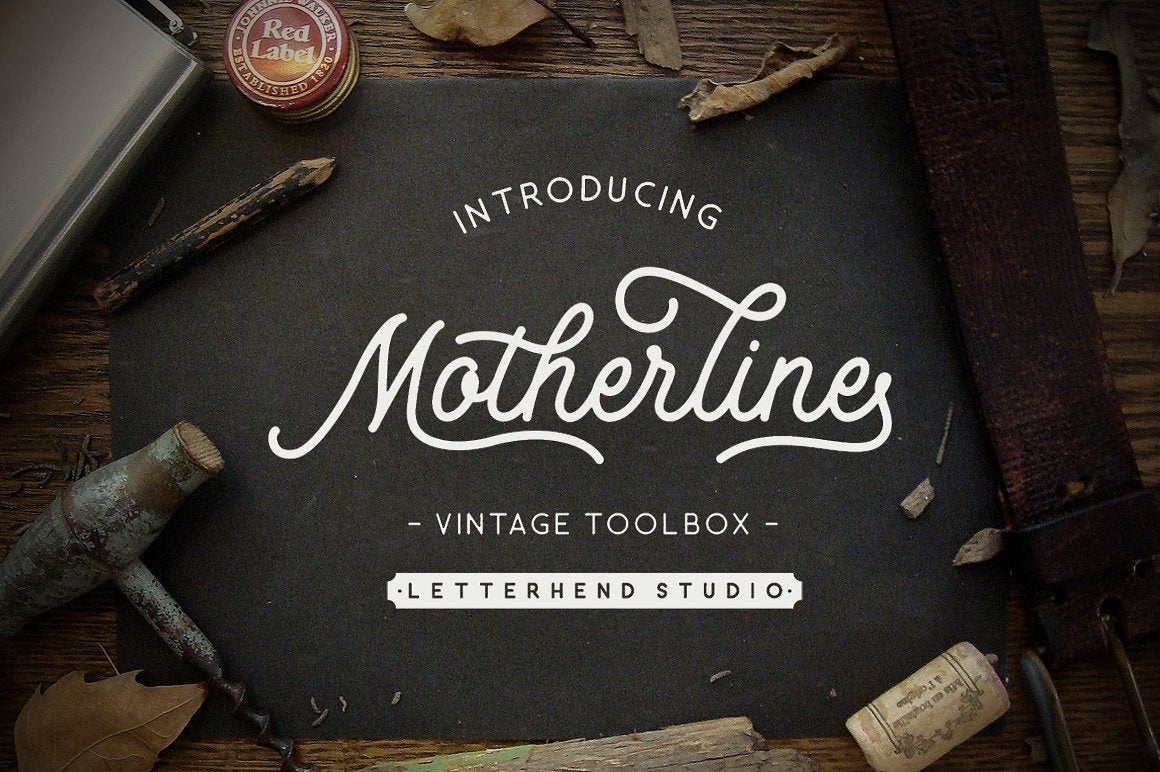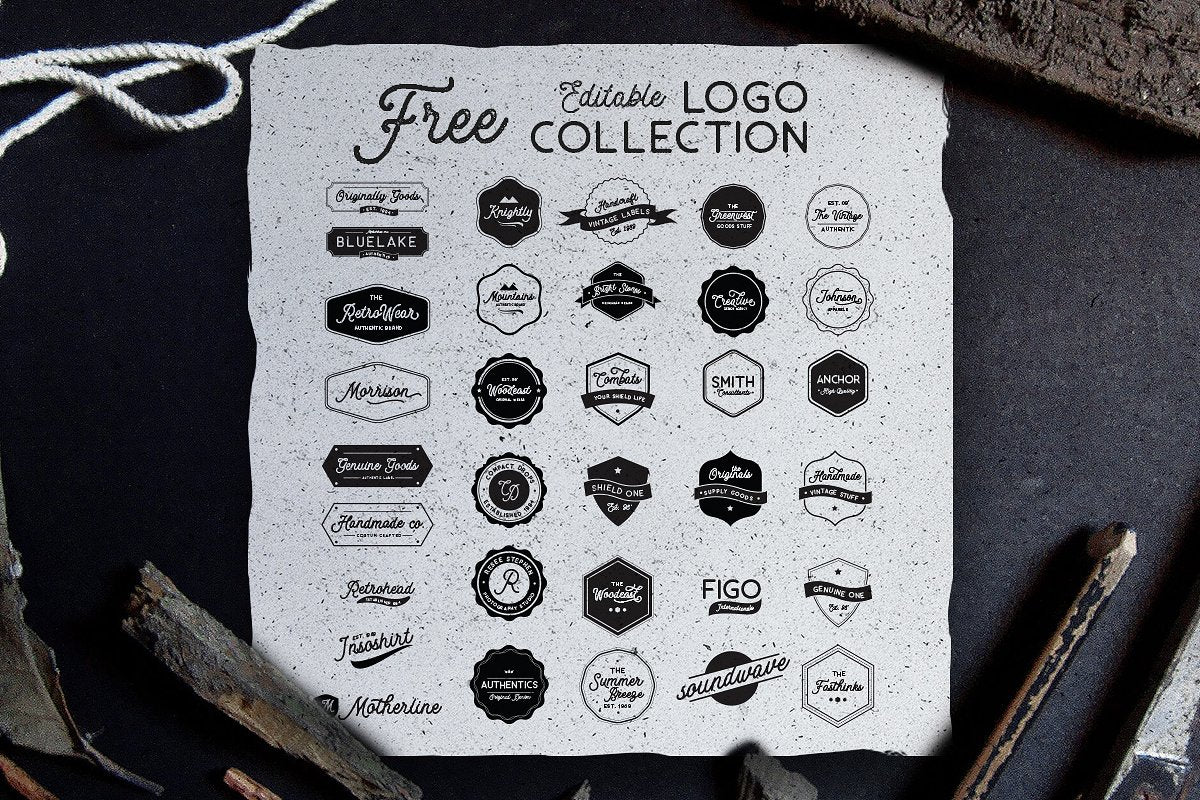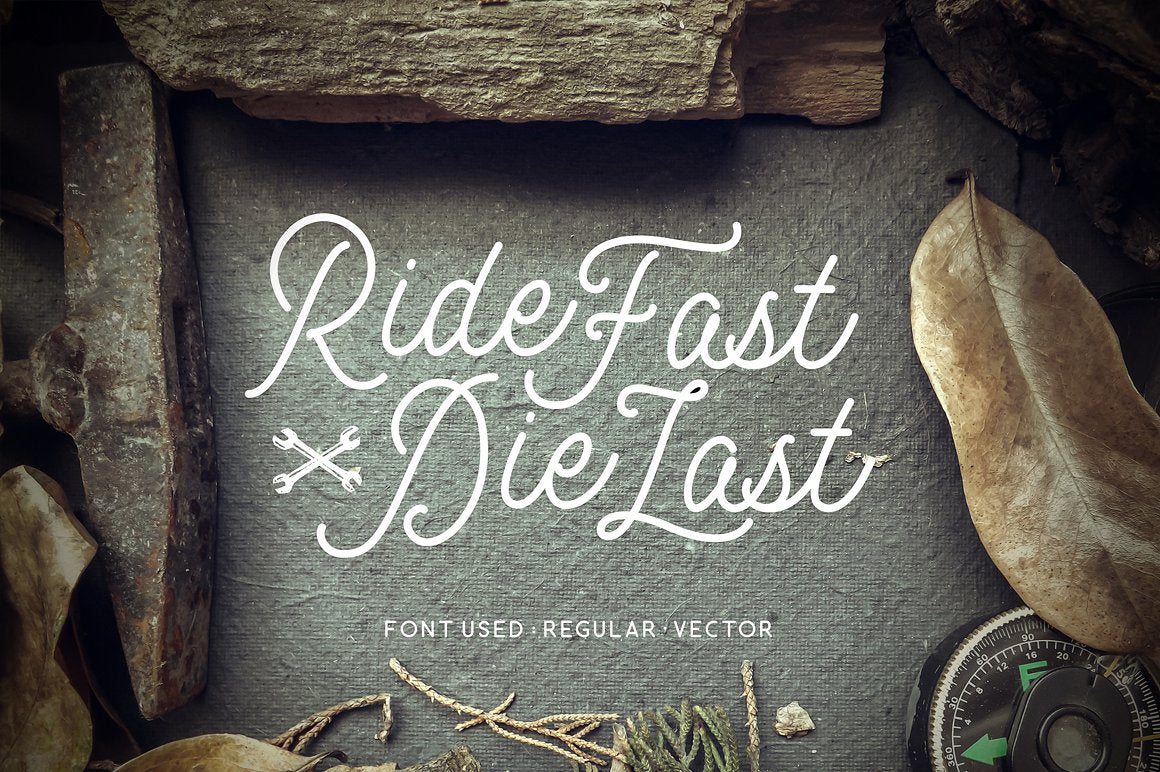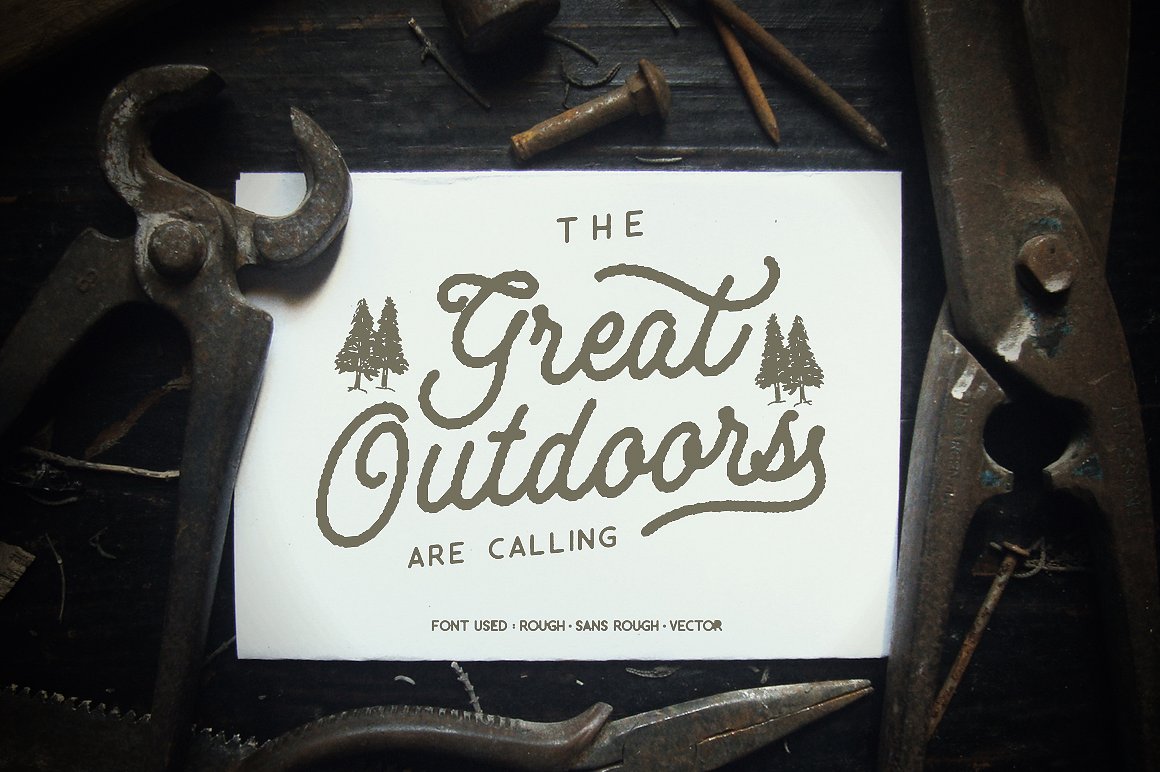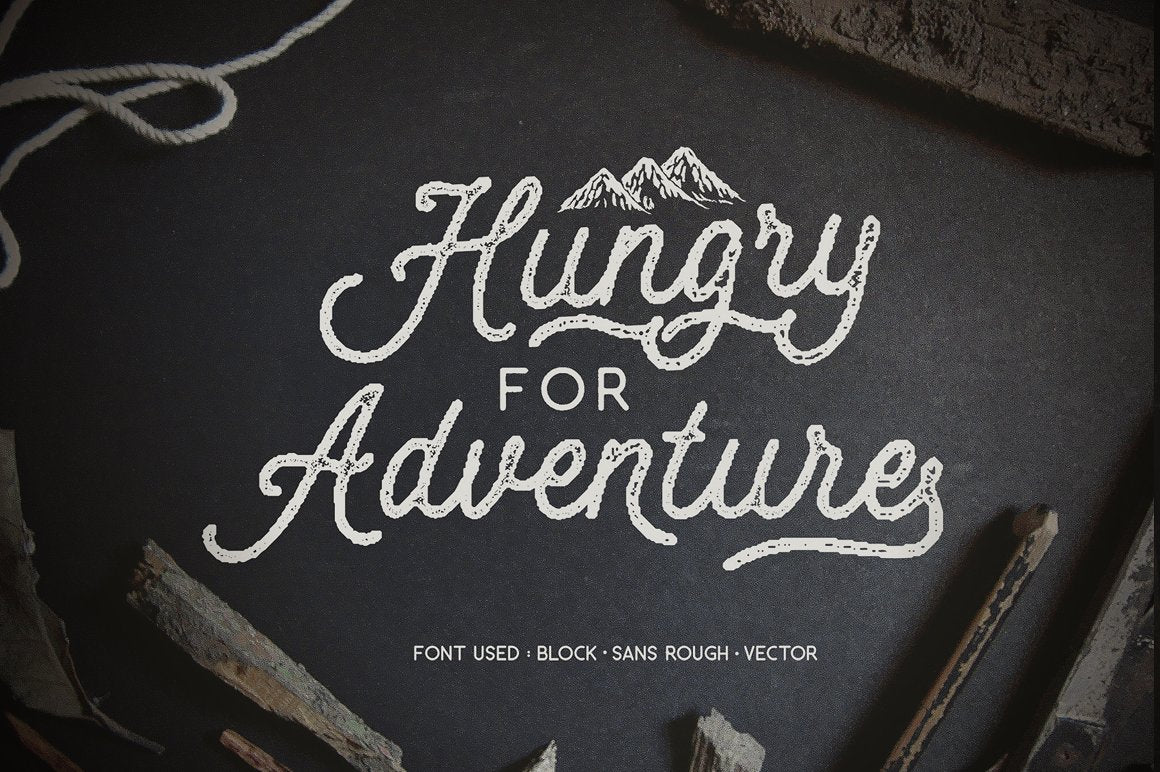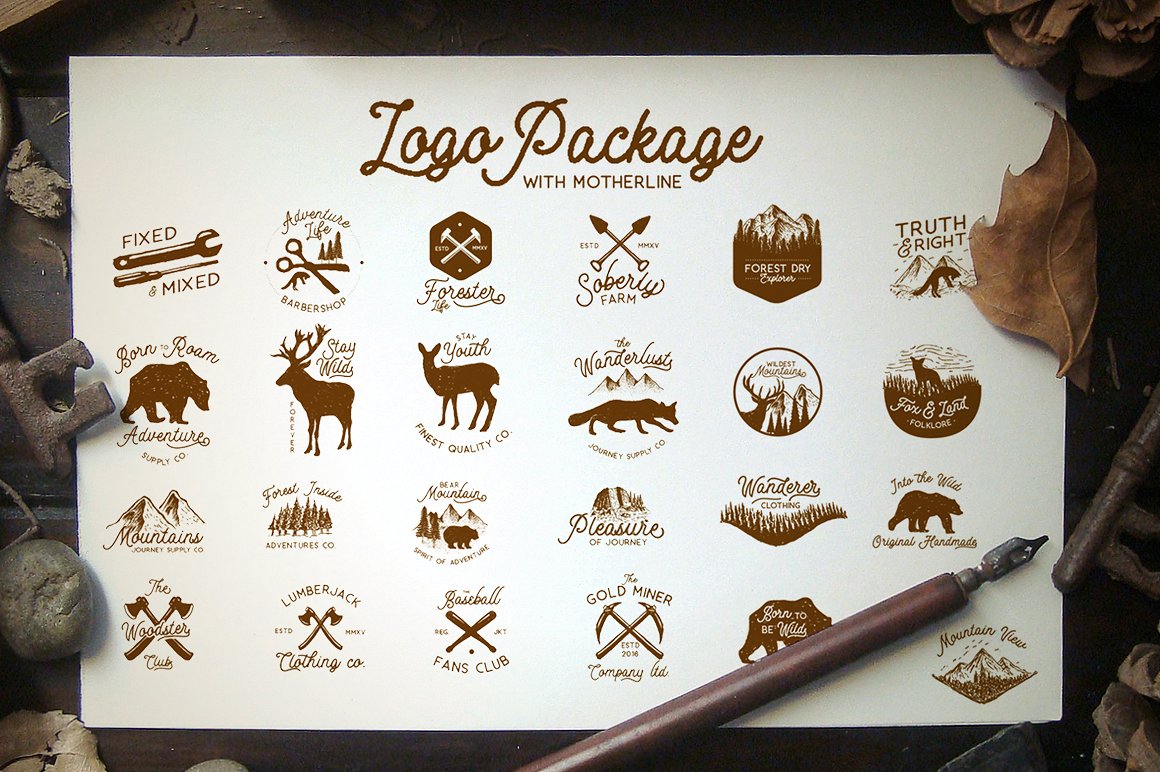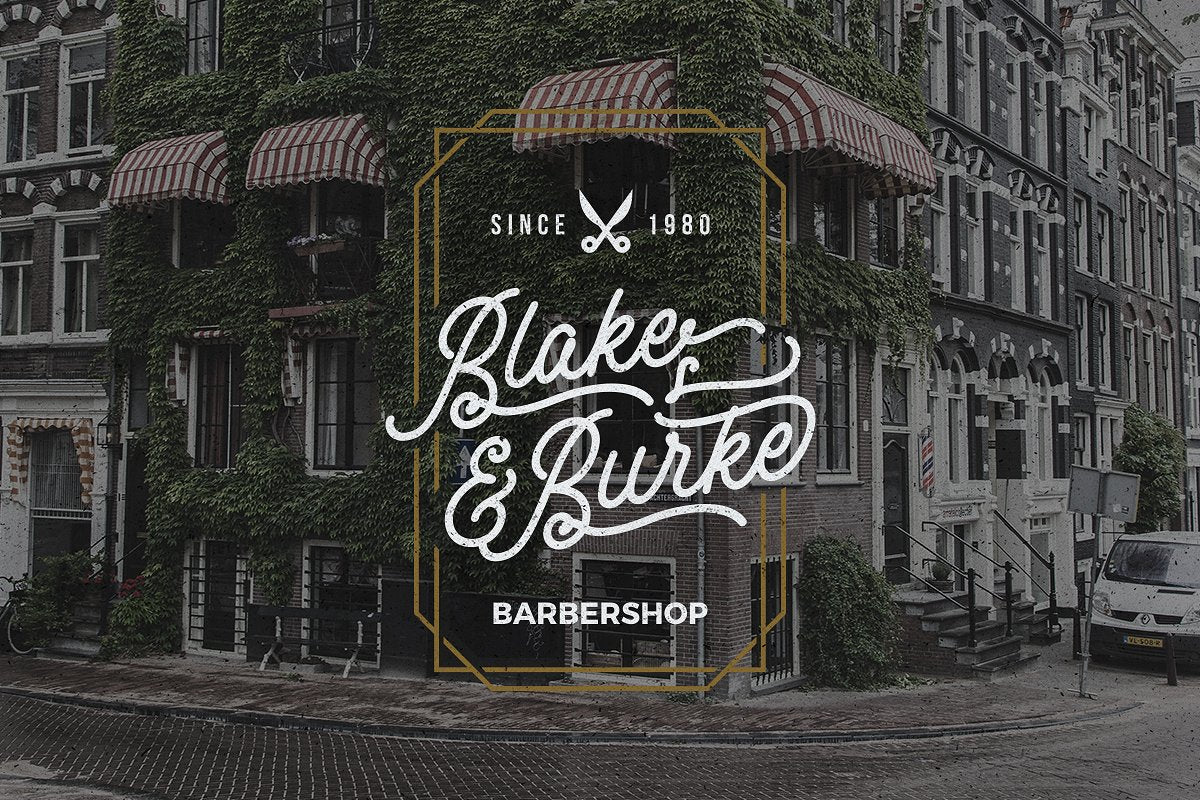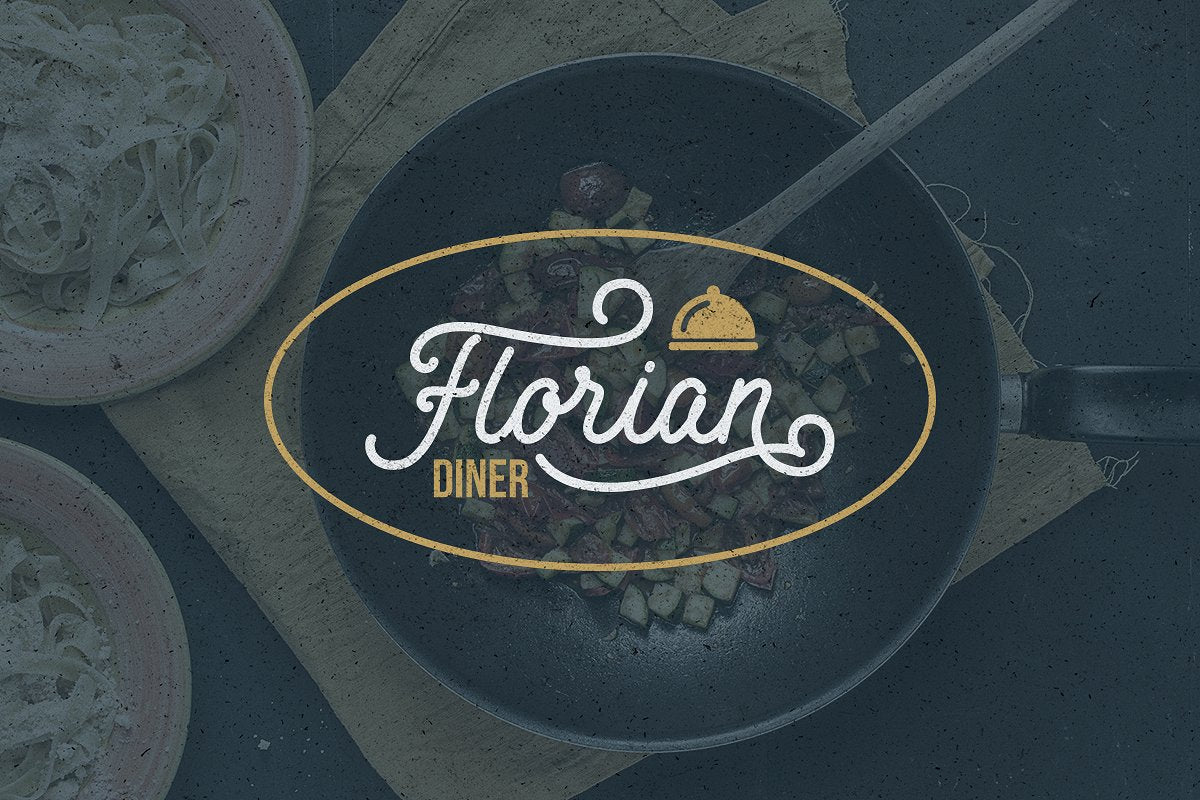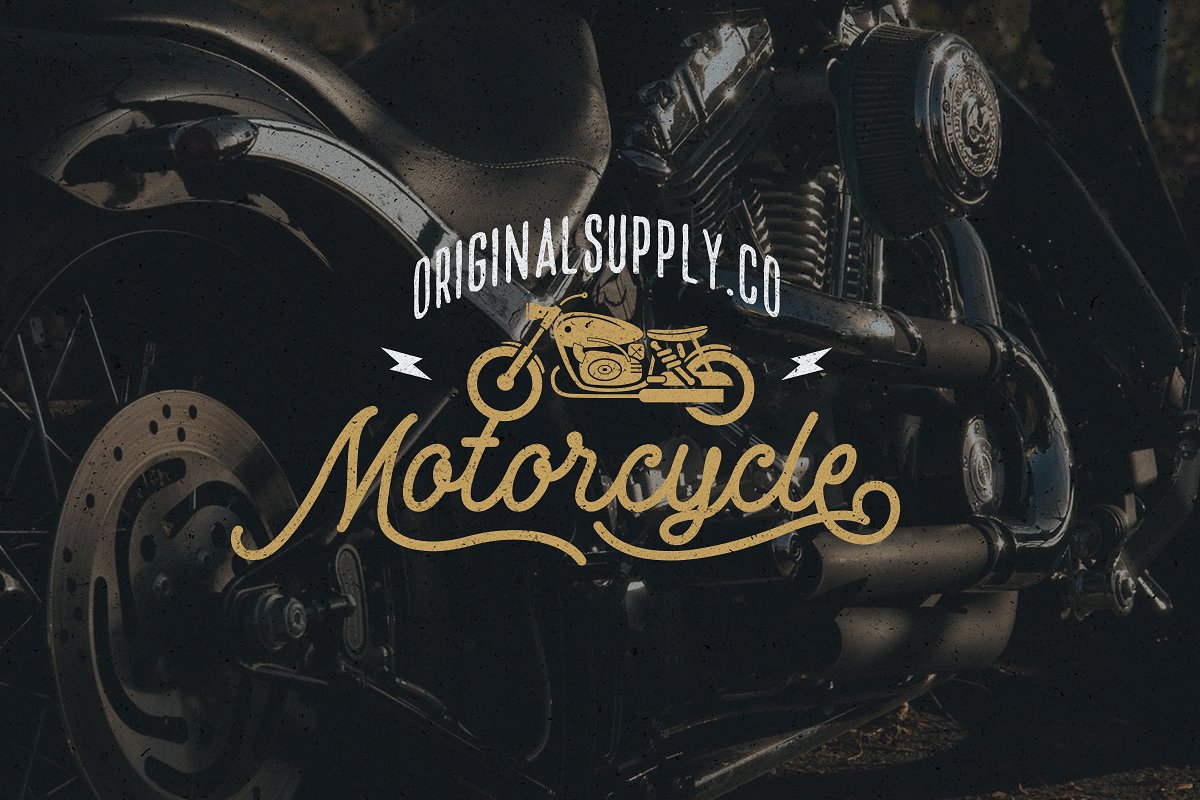
Motherline Regular: A monoline vintage script typeface which is created based on manual hand lettering with many features such as ligatures, stylistic set alternates, swashes, etc., with a total of 650+ GLYPHS! This font also obviously supports multi-language characters! Provided in both OTF and TTF formats.
Motherline Bold: The bold version of Motherline Regular, which looks awesome to be used as a logotype, badge, or emblem that needs a strong and bold text.
Motherline Rough: The rough version of Motherline Regular, suitable to use especially for grungy and gritty textured designs.
Motherline Block: The textured version of Motherline which is also great to use to add some depth for vintage lettering.
Motherline Sans: A complementary sans typeface which is perfectly matched with the main font.
Motherline Sans Rough: The rough version of Motherline Sans.